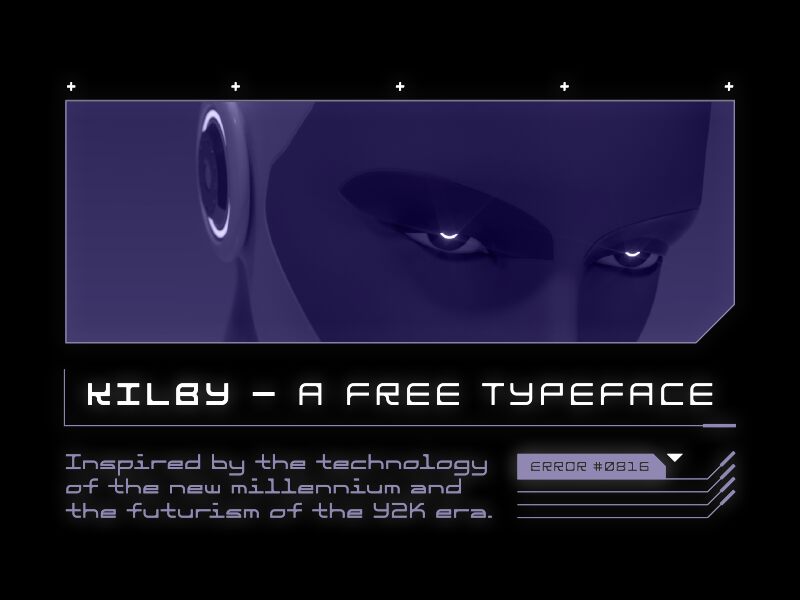
Kilby Bold font is a futuristic typeface designed by Matt Cole Wilson.
KILBY was inspired by the technology of the new millennium and the futurism of the Y2K era. Free to use in both personal and commercial projects. Comes in two weights.